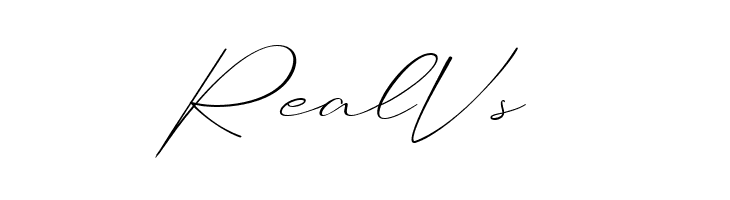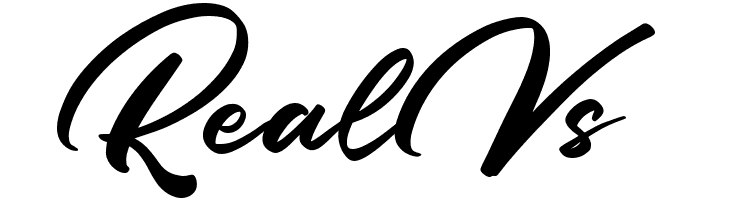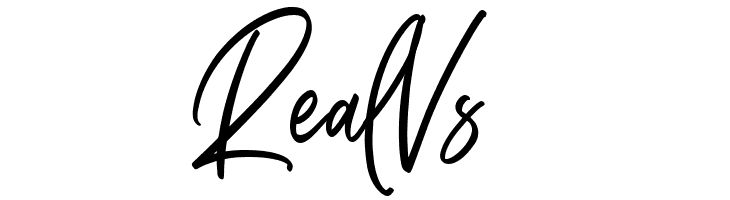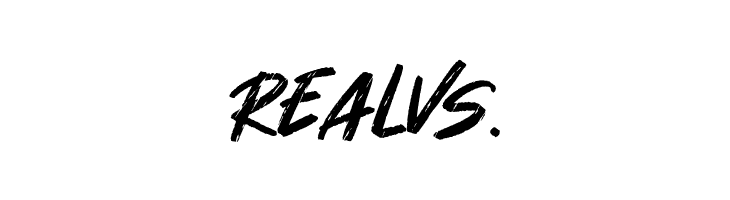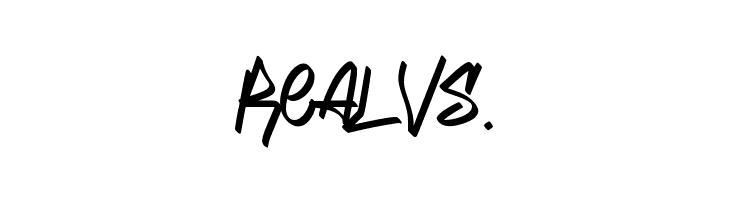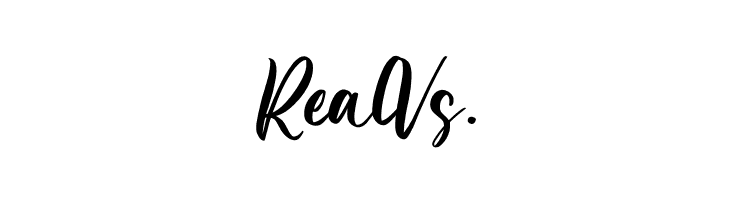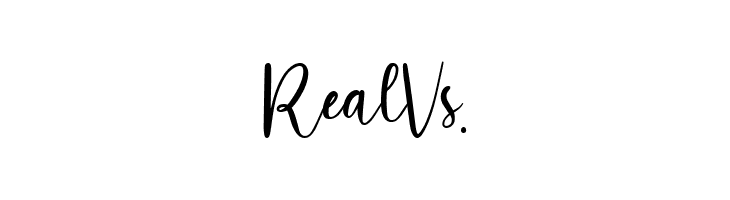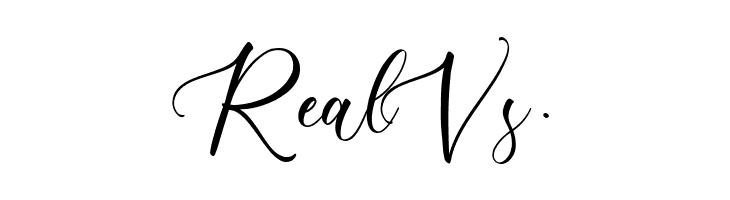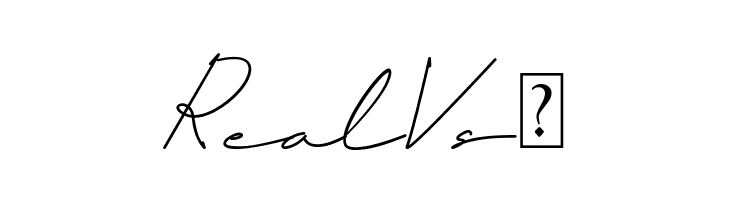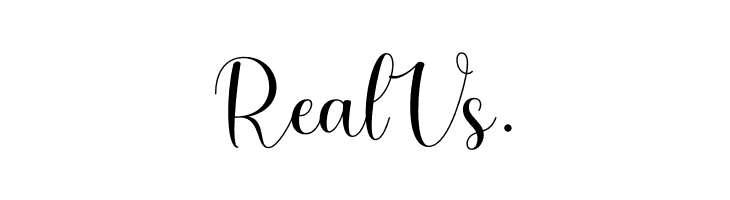
• Harlend Demo
A bold, dynamic script font with elegant curves and a lively appearance.
• Harntman
A modern, elegant script font with flowing, connected strokes.
• Harshita
An elegant, flowing script font with a handwritten appearance.
• Harshita
A graceful script font with fluid, cursive strokes and elegant character design.
• Hatchy
A bold, cursive script font with a flowing, connected style.
• Hattori
Elegant, monoline handwritten script with flowing connections.
• Have nothing to do with
A bold, decorative font with thick, rounded strokes and a slightly condensed width.
• Have nothing to do with
A bold, decorative font with rounded characters and a vintage flair.
• Hazard One
A bold, graffiti-inspired font with sharp, angular lines and dynamic flow.
• Headwind
A bold, brush-style script font with dynamic, textured strokes.
• HeavyLoading
A bold, distressed font with a grunge aesthetic and uneven edges.
• HEAVYRUST
A bold, hand-drawn font with a dynamic and friendly style.
• HeavyWeight
A bold, hand-drawn font with sketch-like outlines and playful character.
• HeckaGrunge
A bold, distressed font with a rugged, grunge texture.
• Helleny
A graceful, cursive script font with a flowing, elegant style.
• Heller
A bold, modern font with clean lines and geometric style.